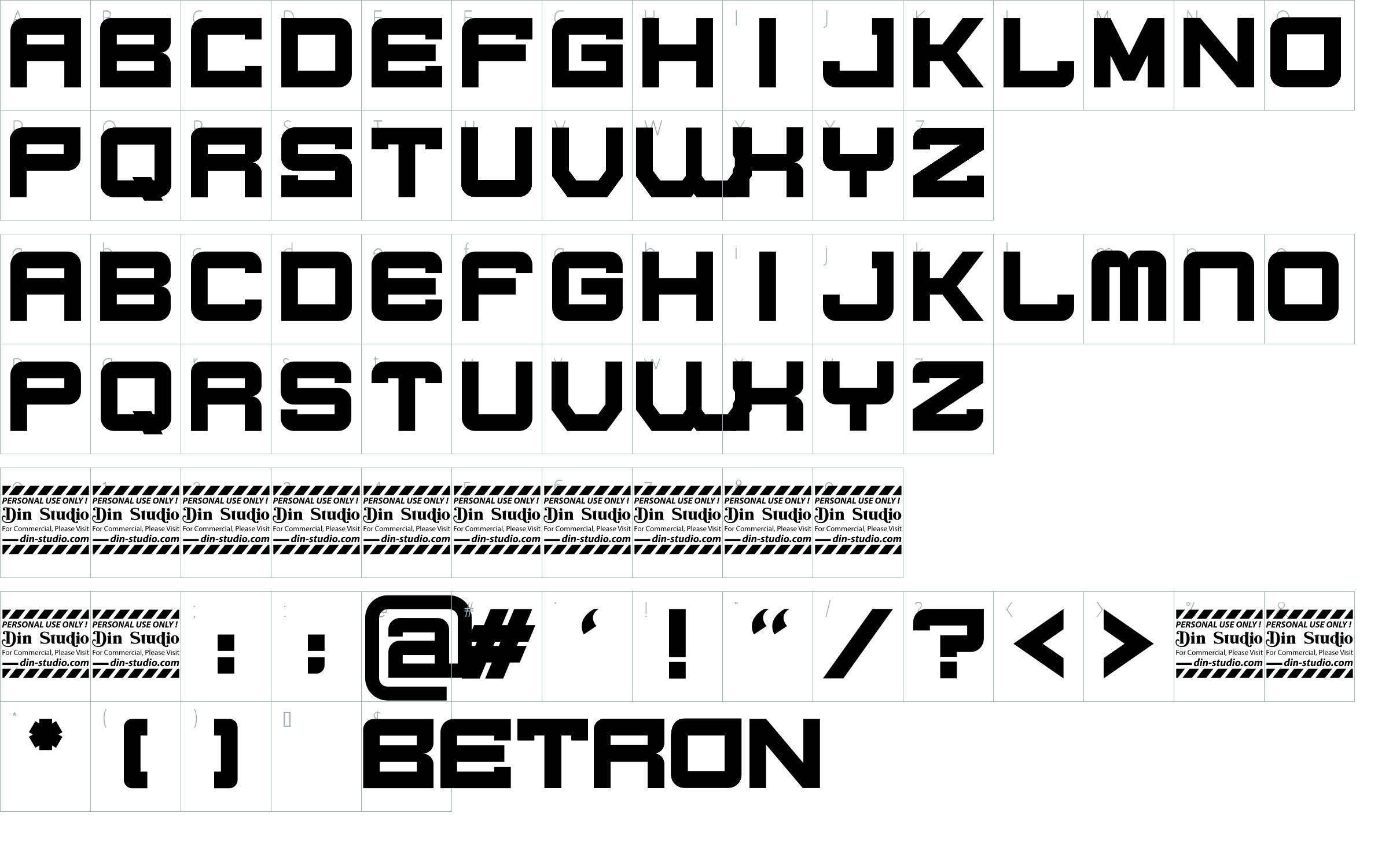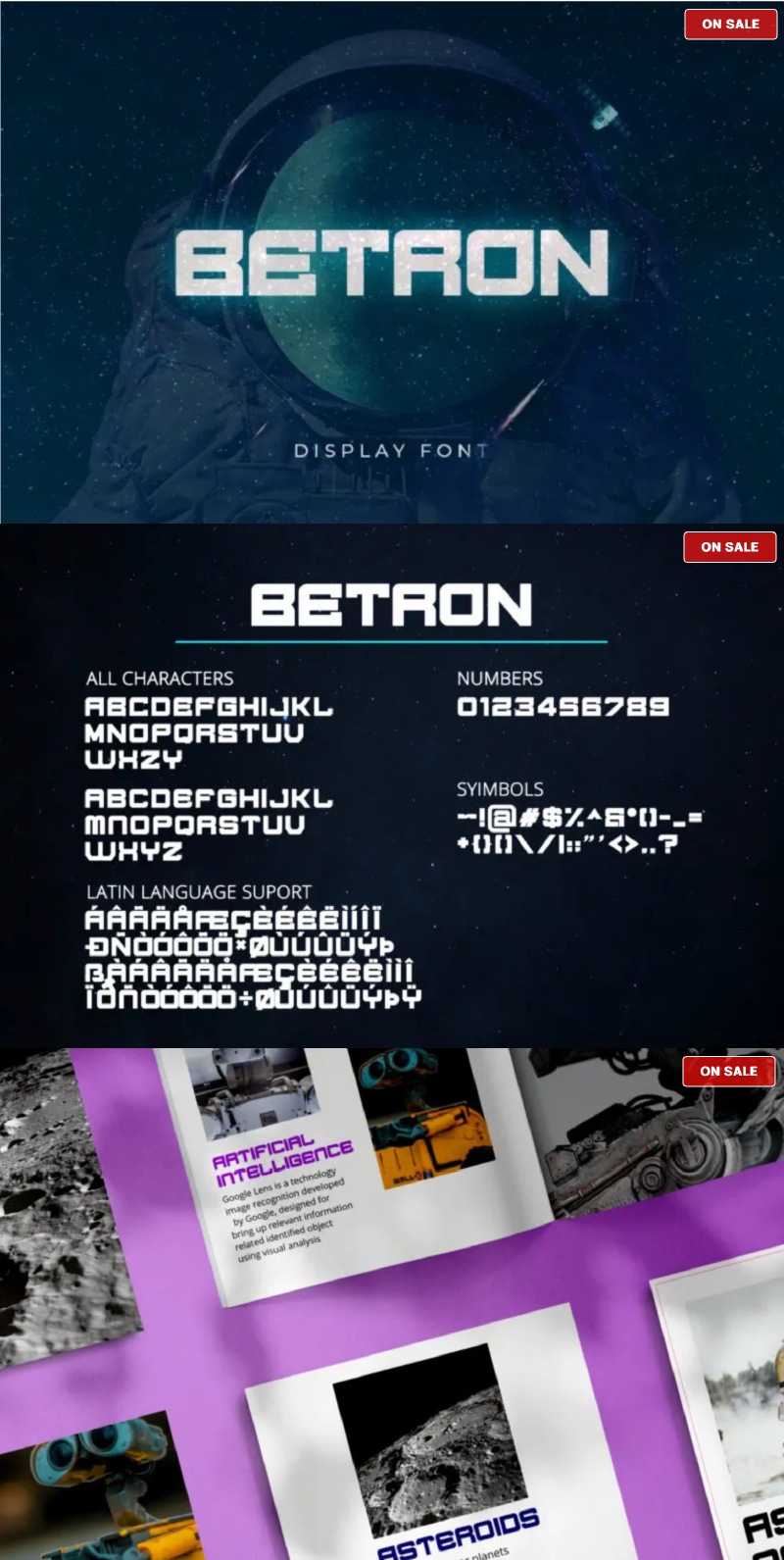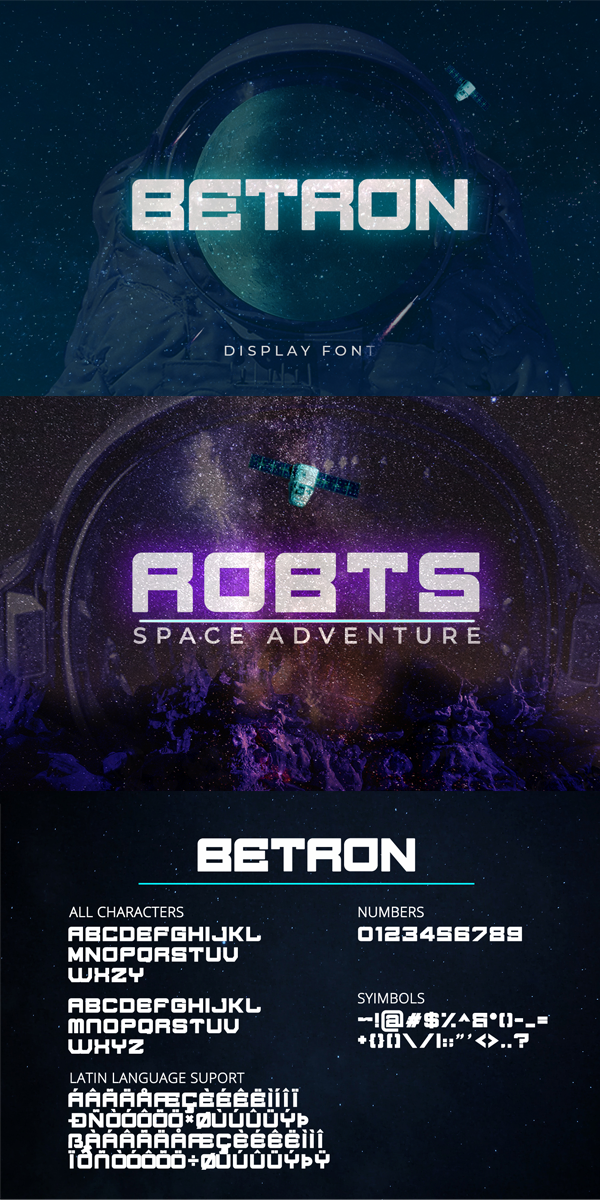
BETRON Font
About BETRON
BETRON is a bold and authentic display font. It is suitable for any project like branding, t-shirt design and ect. The font is containing uppercase characters, numerals, and a large range of punctuation. See the previews above to get some inspiration on how you can use them. Enjoy the font!
Featured :
Accents (Multilingual characters)
Numerals and Punctuation (OpenType Standard)